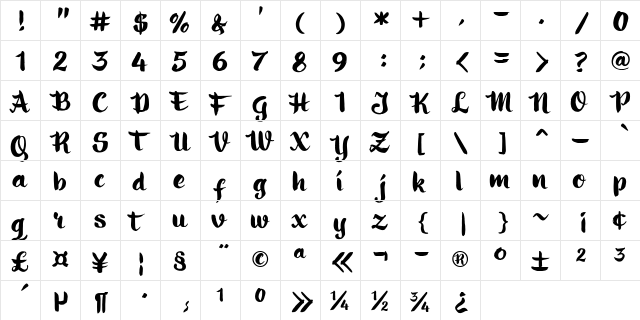
Ringotube Regular
Design Context for Ringotube Typeface
Ringotube is a composed and adaptable typeface that performs quietly and consistently across a wide range of design contexts.
Pro Tip: Use Ringotube in both headline and body roles to test its range before committing to a single application.